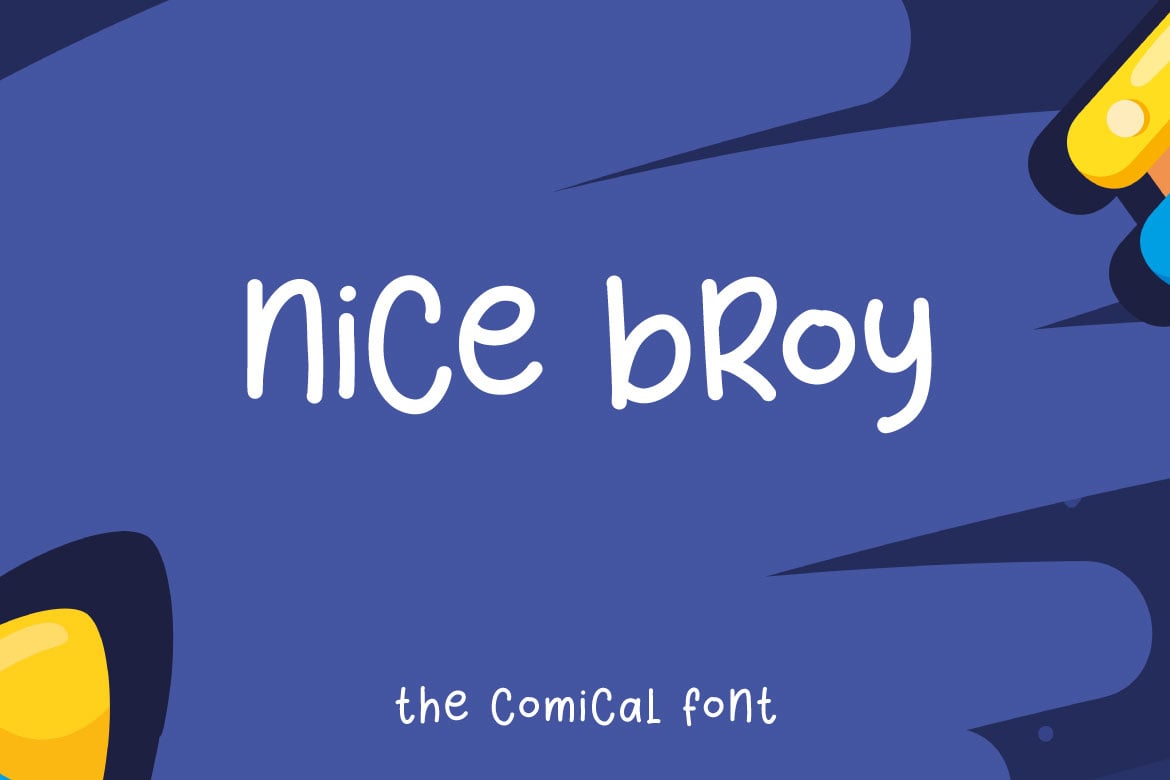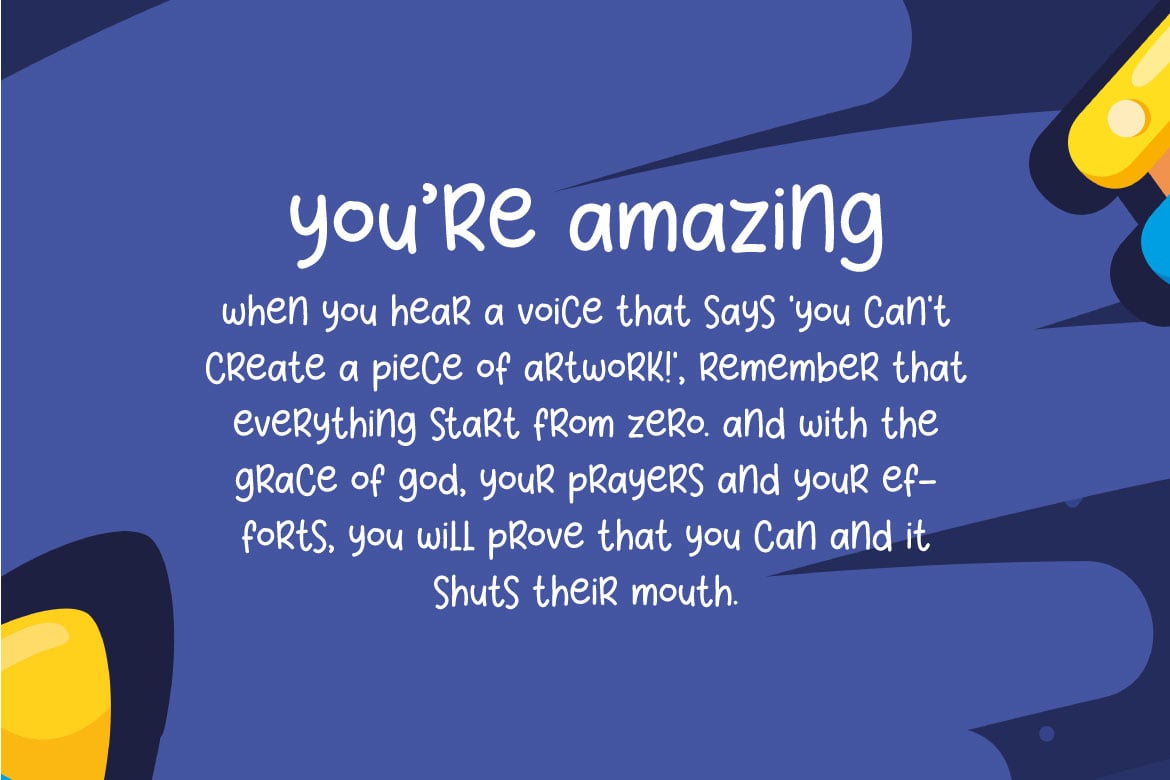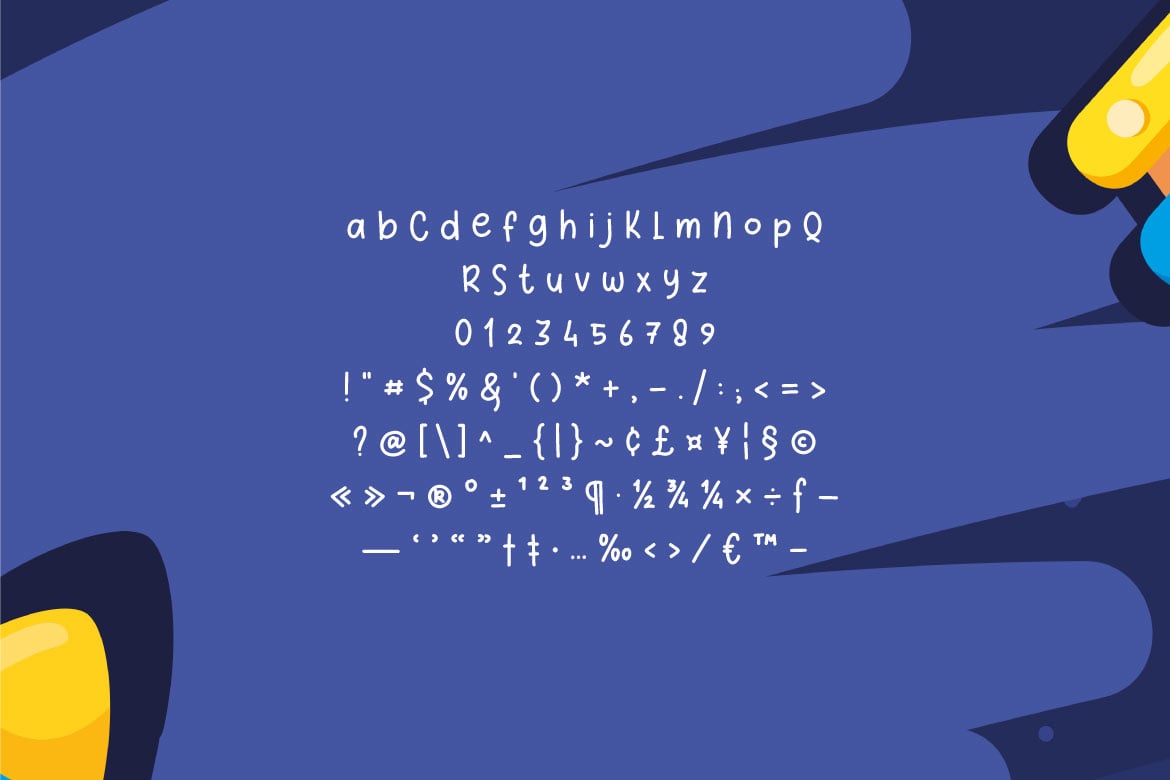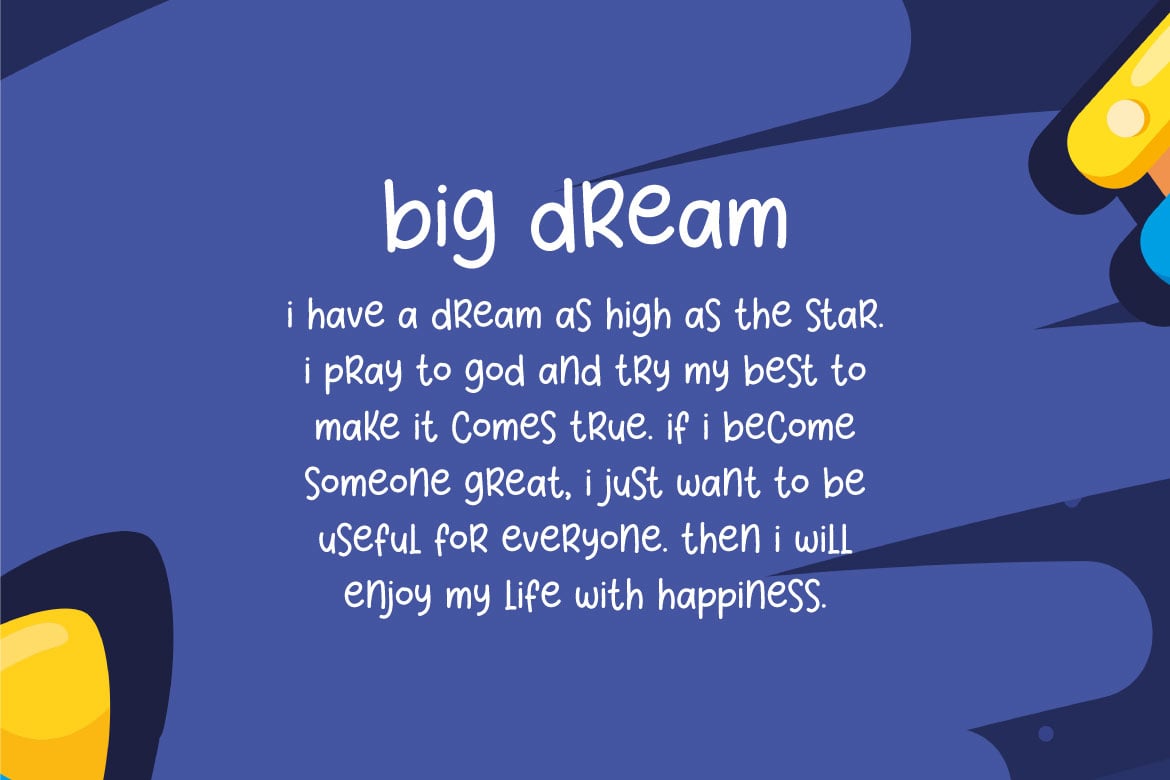
Nice Broy – Comic Font
Hello! Nice Broy is a comic cute sansserif font.
Nice Broy can be used in any works such as comic book, poster, school, flyer, book title, advertisement, social media content, logo and many more.